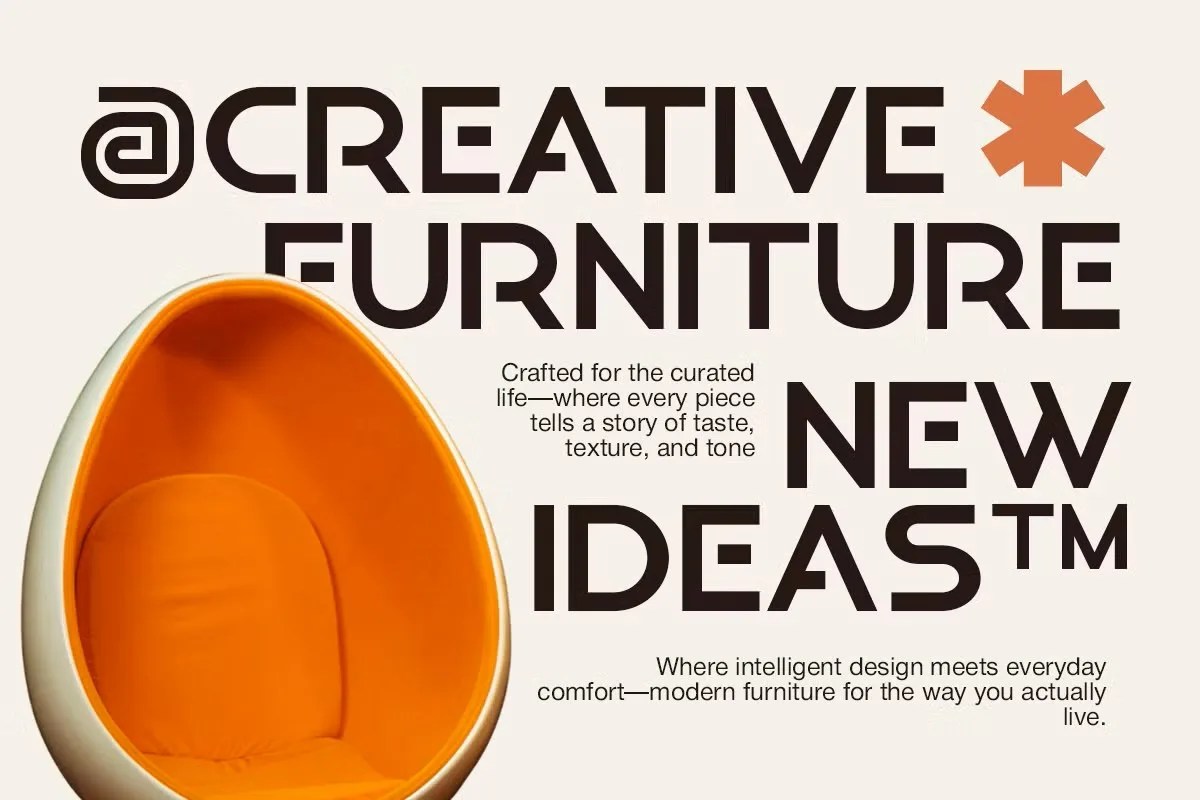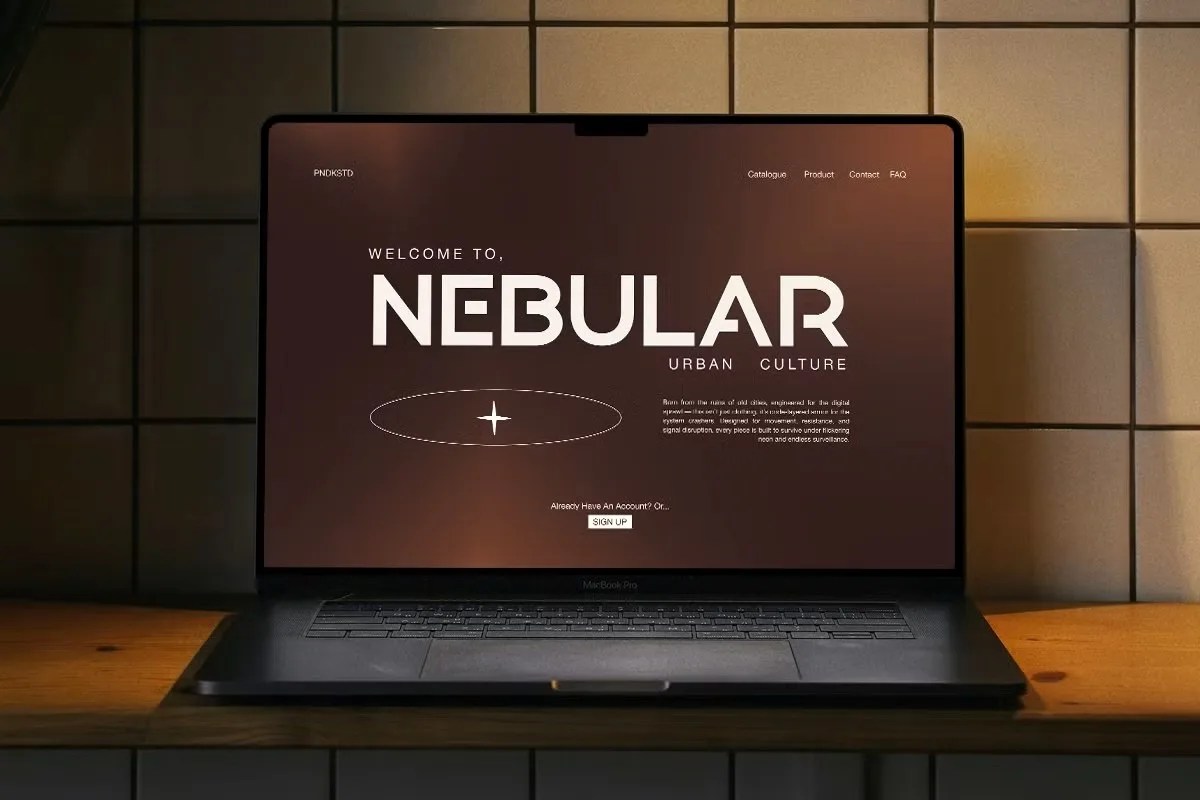
Corpline by Pandeka Studio. This is a clean and professional corporate sans serif font that designers created with clarity and function in mind. The font communicates with efficiency and a straightforward, modern simplicity. Corpline is the perfect tool for building a trustworthy and polished brand identity. It provides a solid and reliable foundation for all your business-related communications, ensuring your message is always clear and professional.
This font is a superb choice for a wide range of business applications. Specifically, its professional look is ideal for establishing company style guides and branding kits. You can use it for impactful presentations, annual reports, and internal documents. Furthermore, this corporate sans serif font is excellent for website and application design. It provides the necessary clarity for user interfaces and readable body copy. It helps build a cohesive and professional online presence for any business, big or small.
• Clean and professional sans serif style
• Designed for high readability and clarity
• Ideal for corporate branding, reports, and web
• Adds a modern and trustworthy feel
Corpline